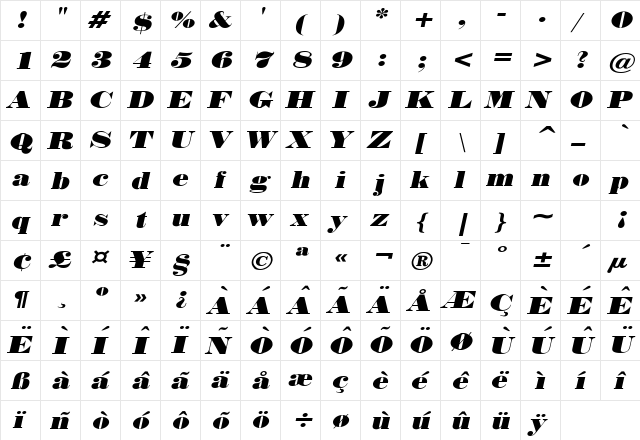
Norway Wide Italic
Design Context for Norway Wide Typeface
Norway Wide is a composed and adaptable typeface that performs quietly and consistently across a wide range of design contexts. Its italic angle brings a sense of urgency and motion to the letterforms.
Pro Tip: Try Norway Wide for annotation and caption copy alongside an upright companion — the contrast in angle creates a dynamic but ordered typographic system.